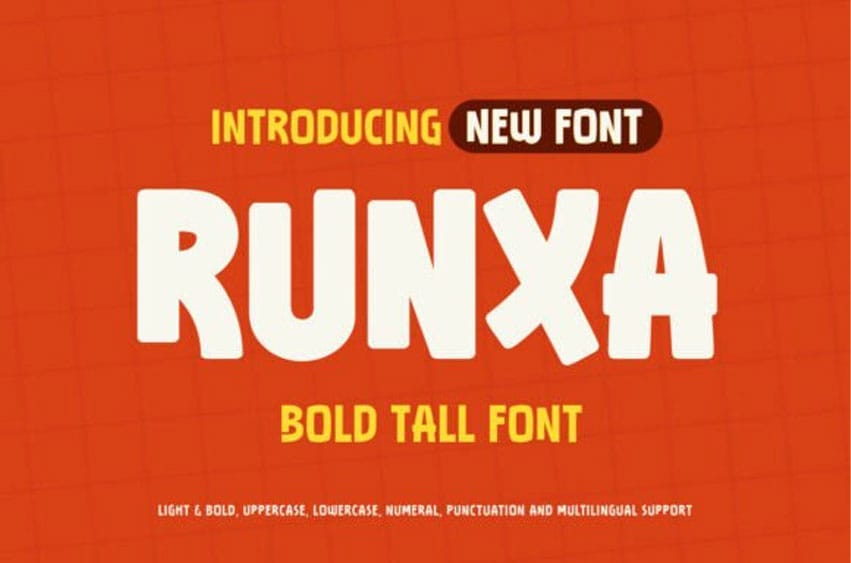
Runxa Font is a striking, bold, tall display font designed to command attention and elevate your headlines.
With its extra-tall letterforms, strong vertical presence, and thick strokes, Runxa is ideal for impactful posters, magazine titles, album covers, sports branding, and streetwear designs.